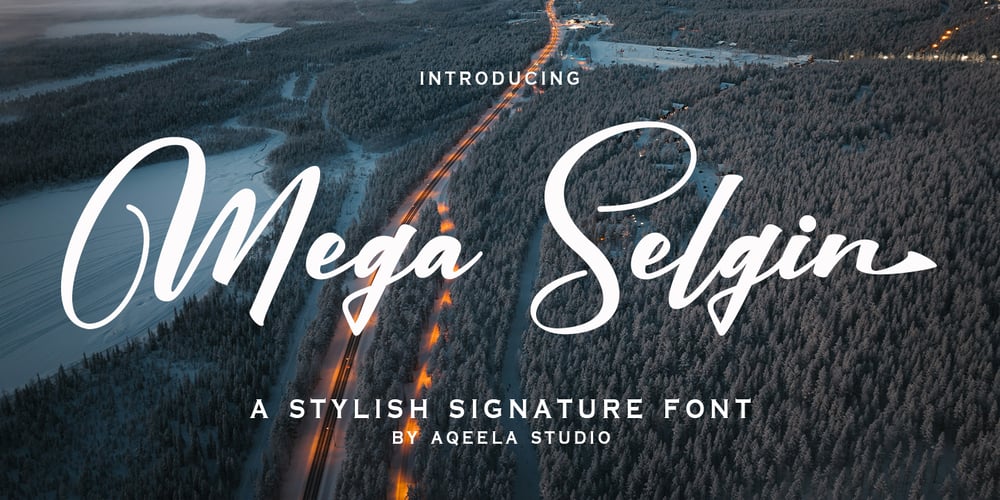
Mega Selgin Font Family was designed by Muhammad Nasir and published by Aqeela Studio. Mega Selgin contains 1 styles and family package options. Mega Selgin is a signature font that captures the fluidity of a personal inscription with a touch of modern elegance. It’s a dance of graceful strokes and confident curves, reminiscent of a handwritten note penned with a flourish. This font isn’t just about letters; it’s about personality, adding an intimate and sophisticated touch to any design. Imagine it gracing a wedding invitation, lending a personal touch to branding, or adding a touch of artistry to a social media post – Mega Selgin transforms simple text into a statement of refined individuality.